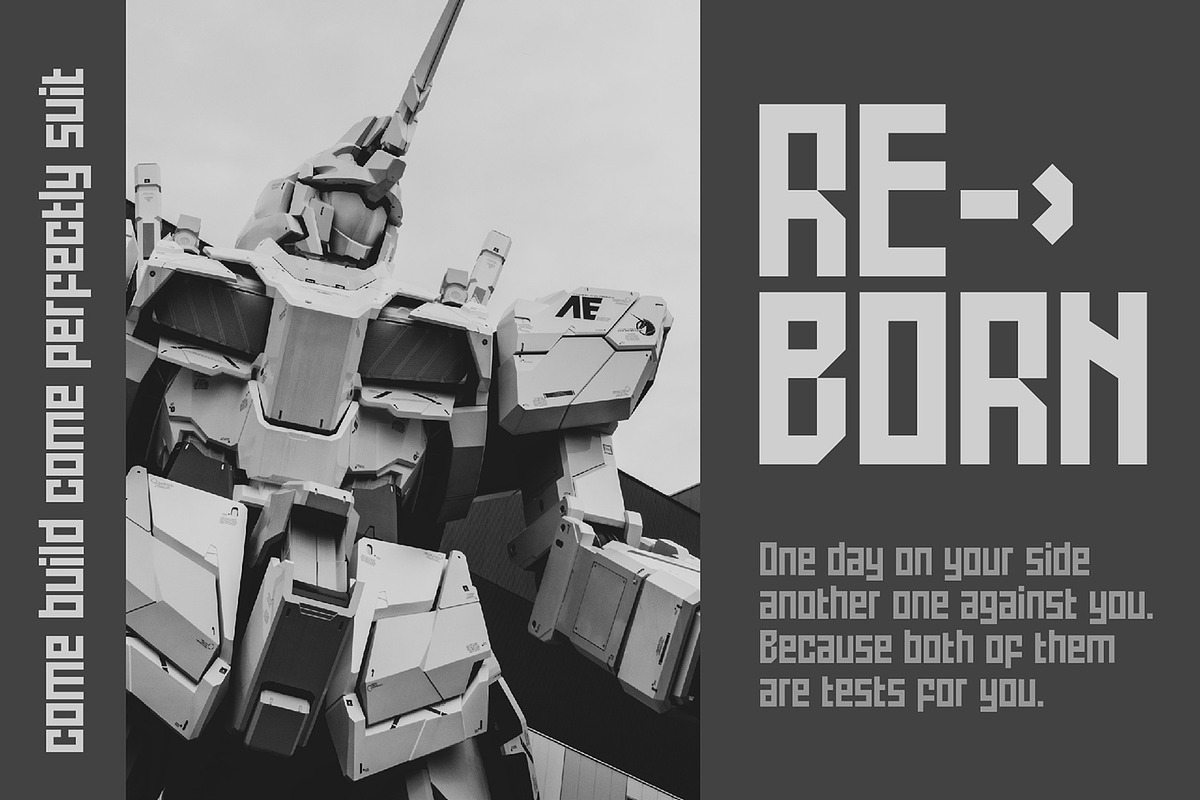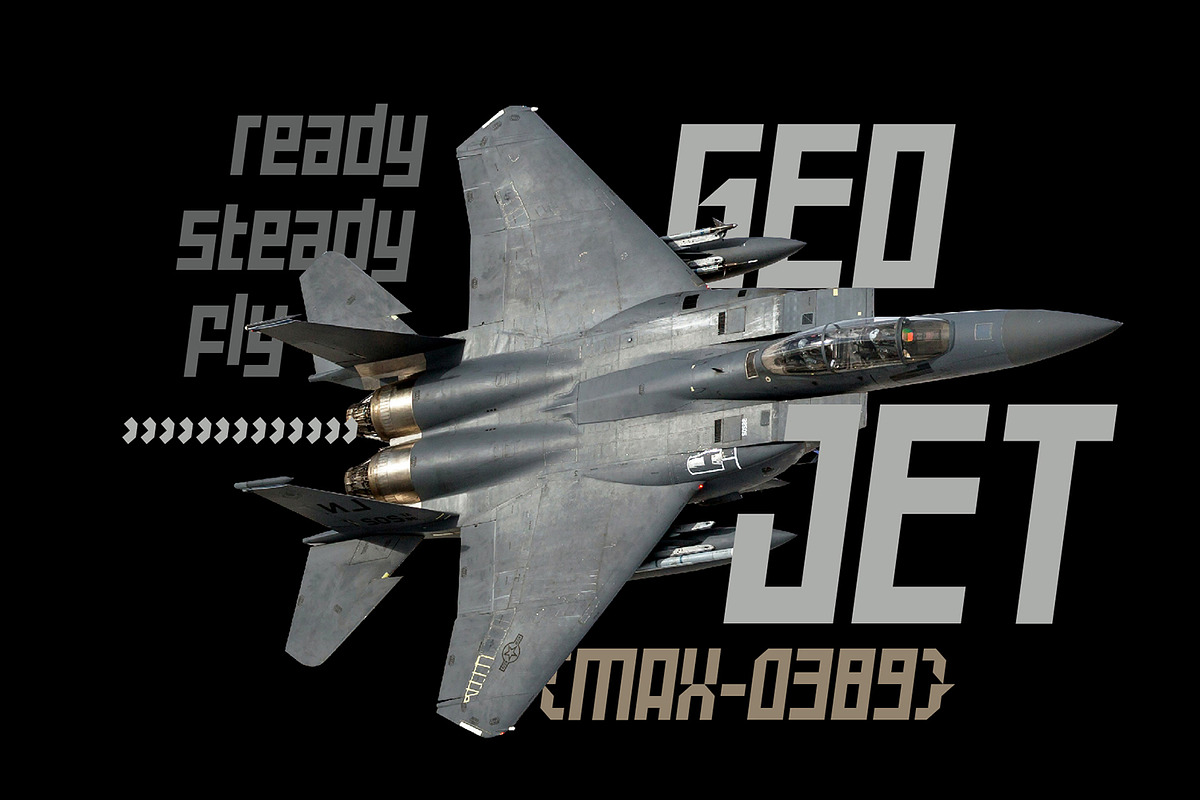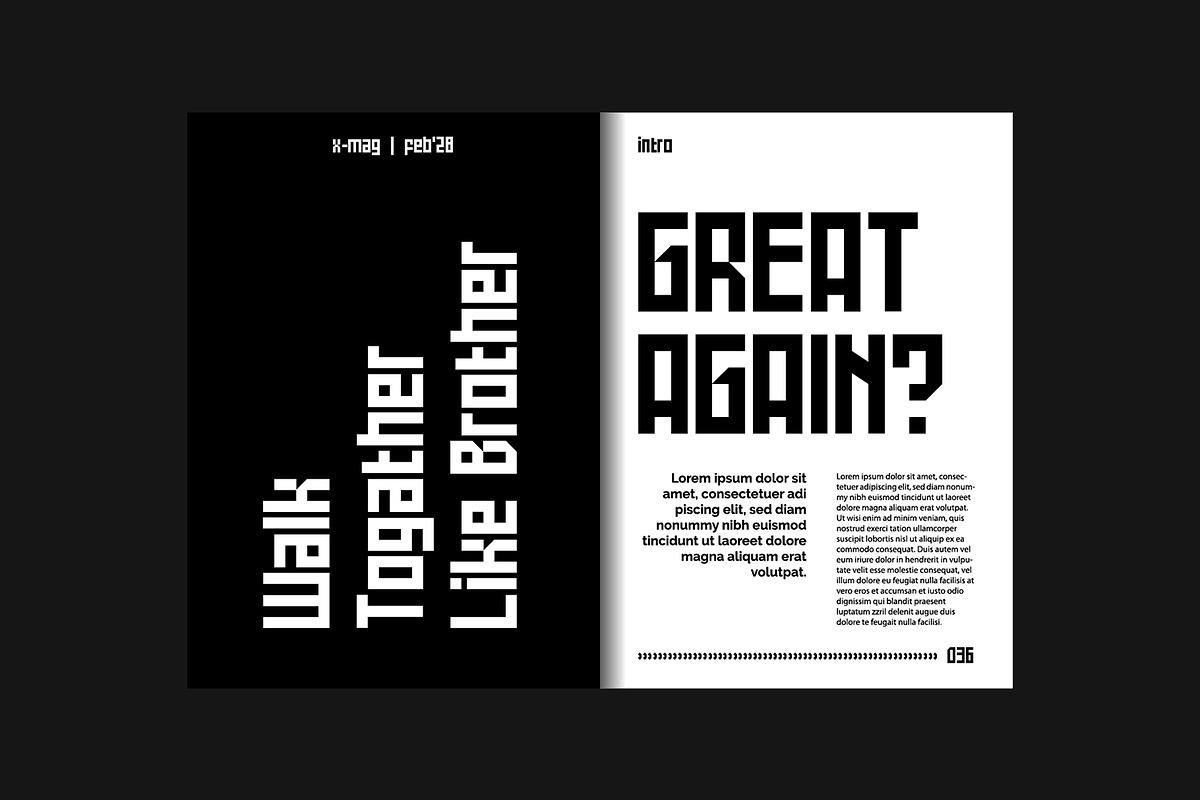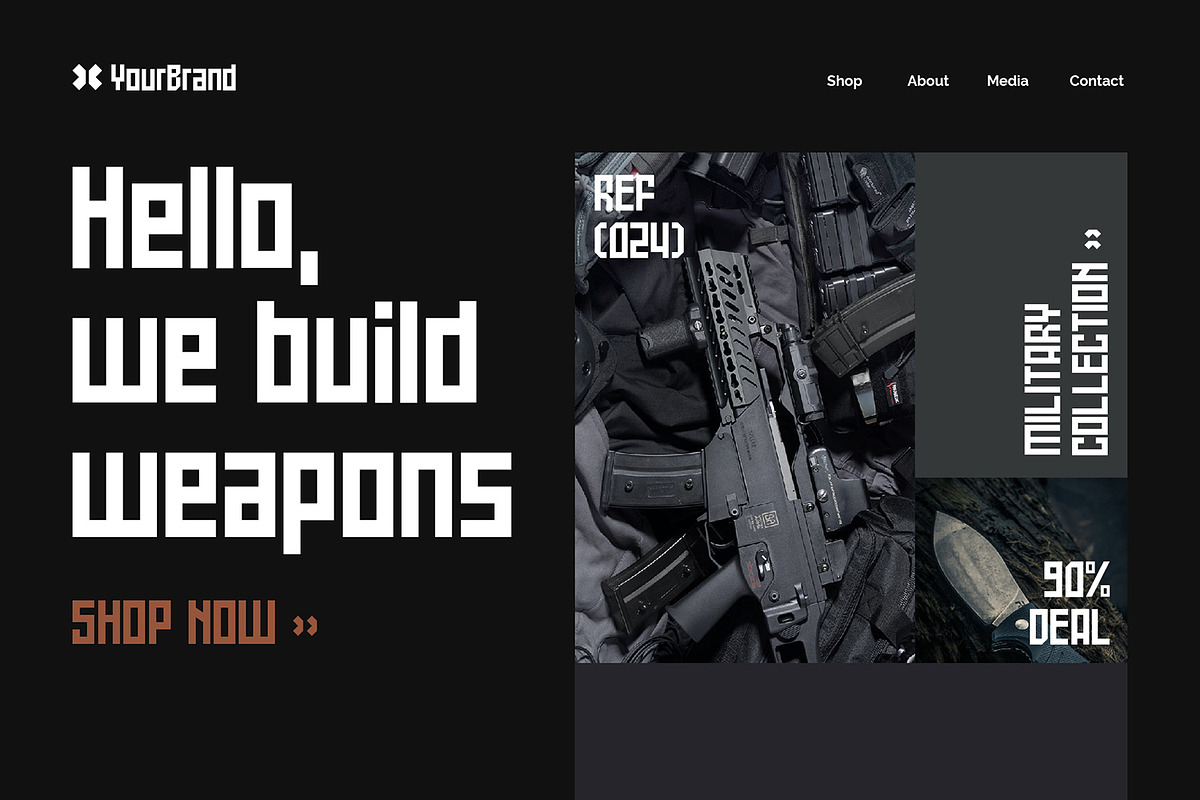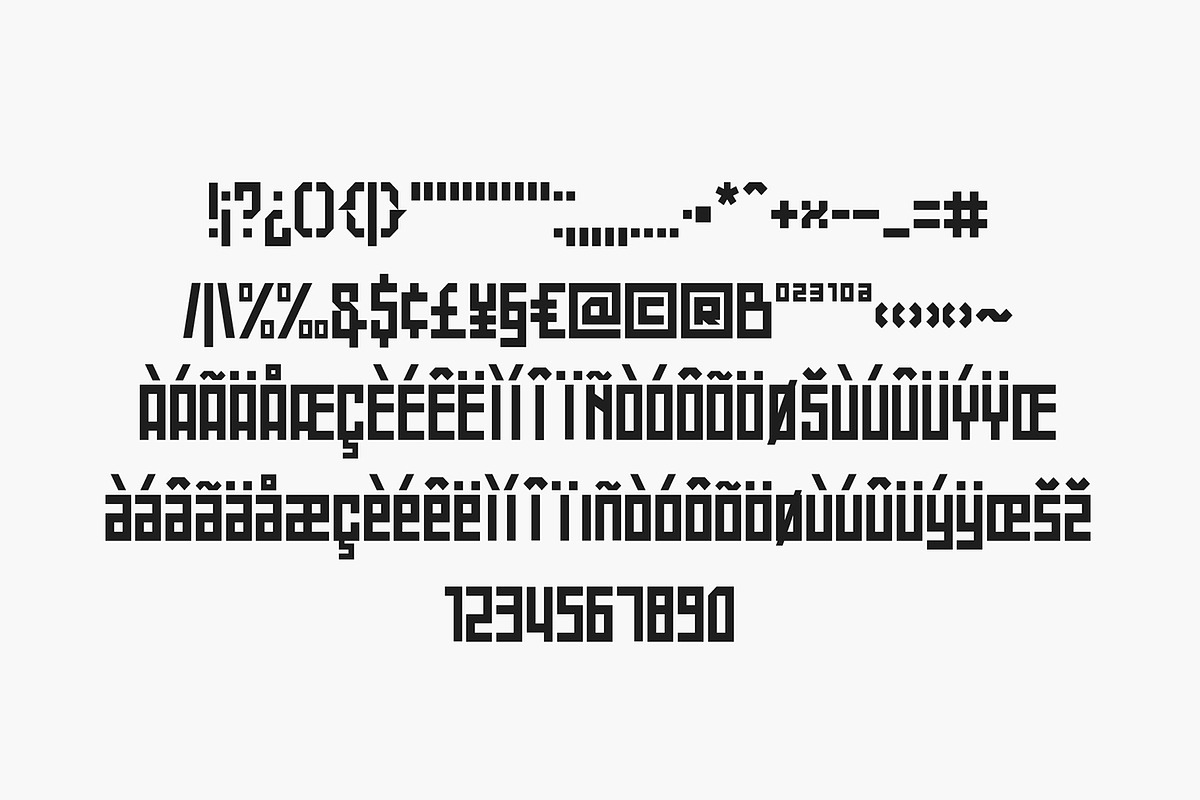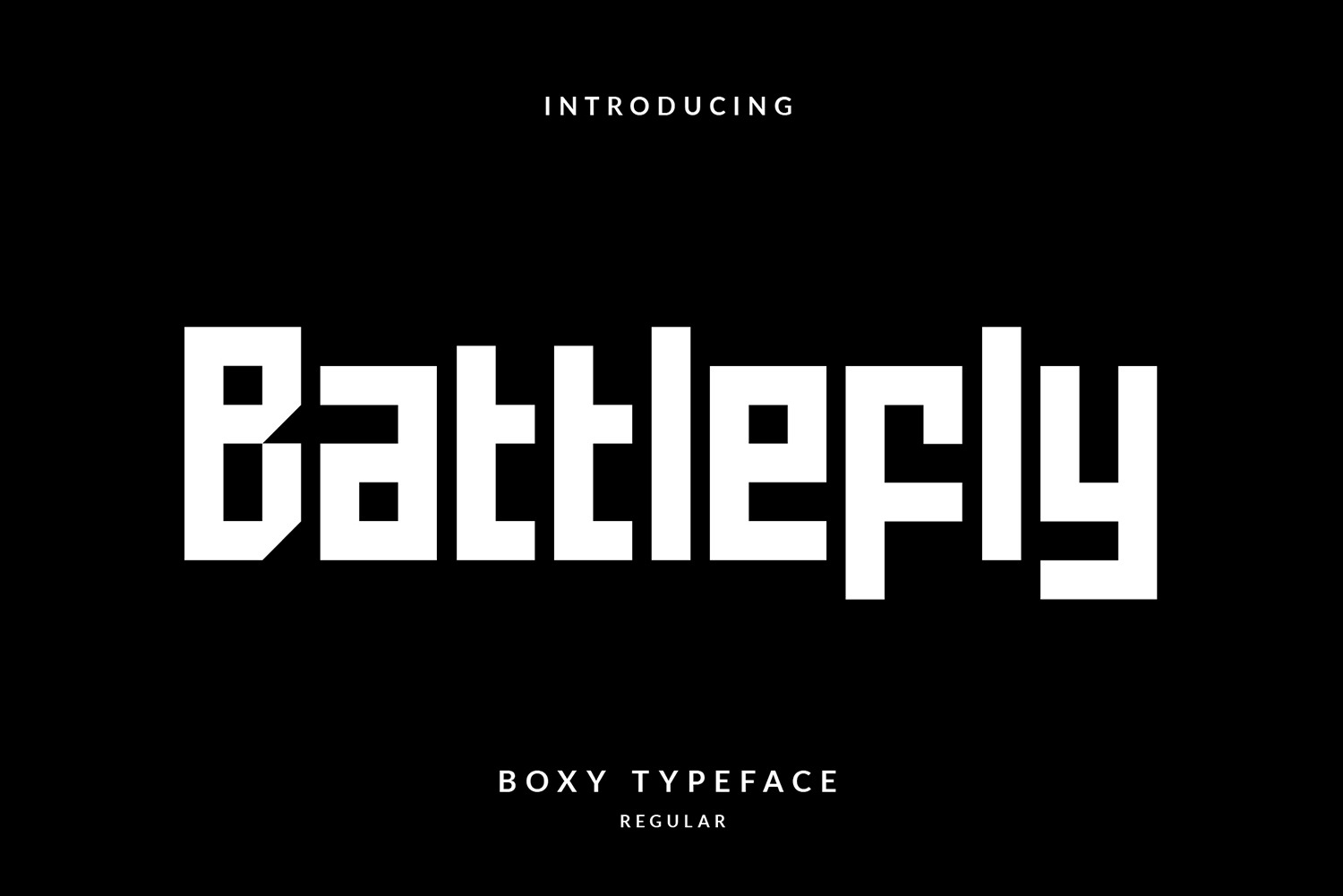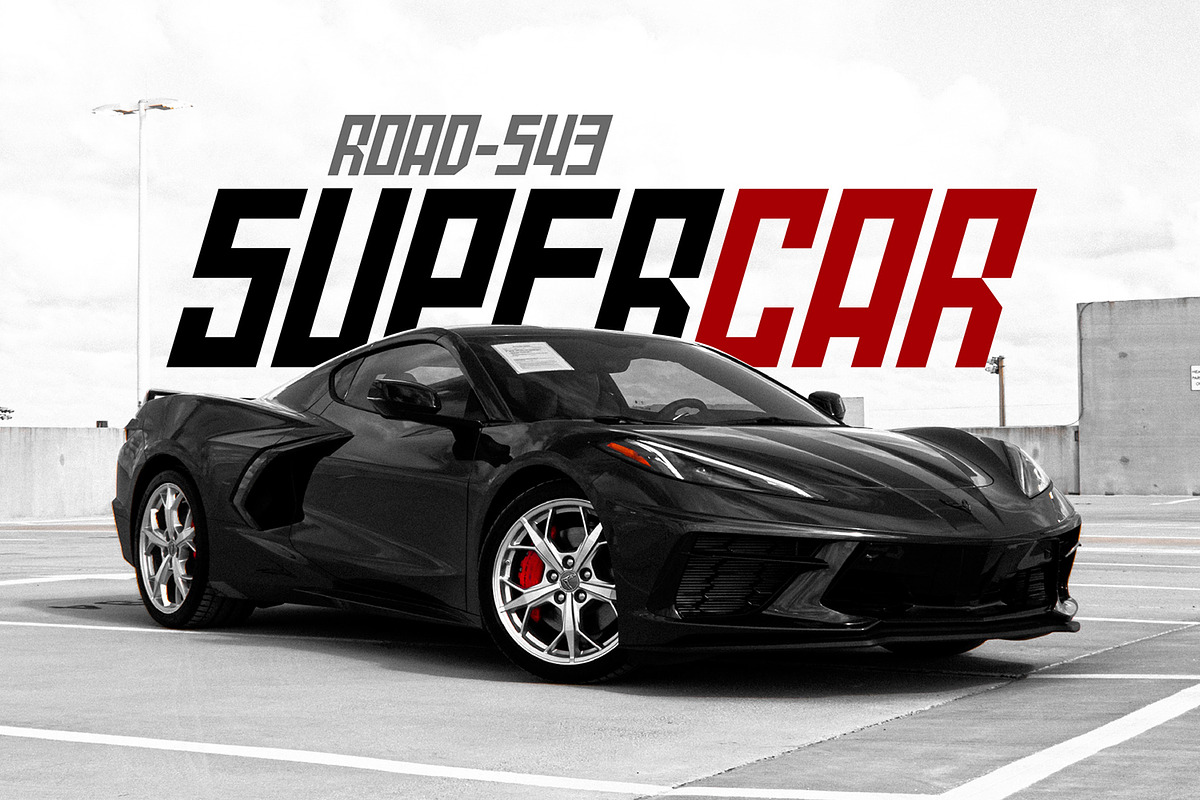
Battlefly Modern Boxy Font
Battlefly is a boxy typeface/font designed with carefully handcrafted. This perfectly made to be applied in logo or branding, stationery, books, packaging, fashion, magazines, t-shirt, novels, labels and many advertising purposes.